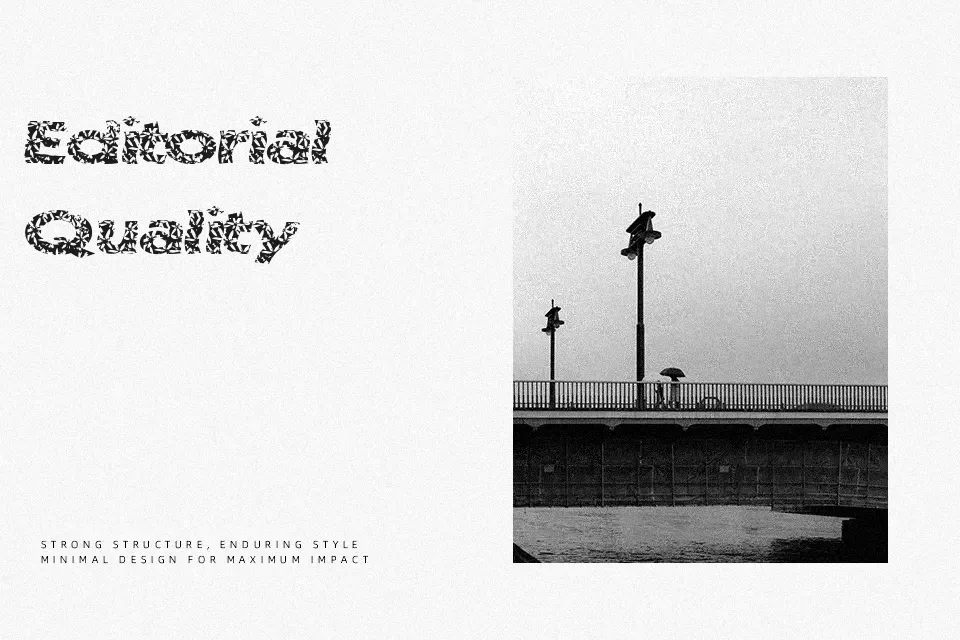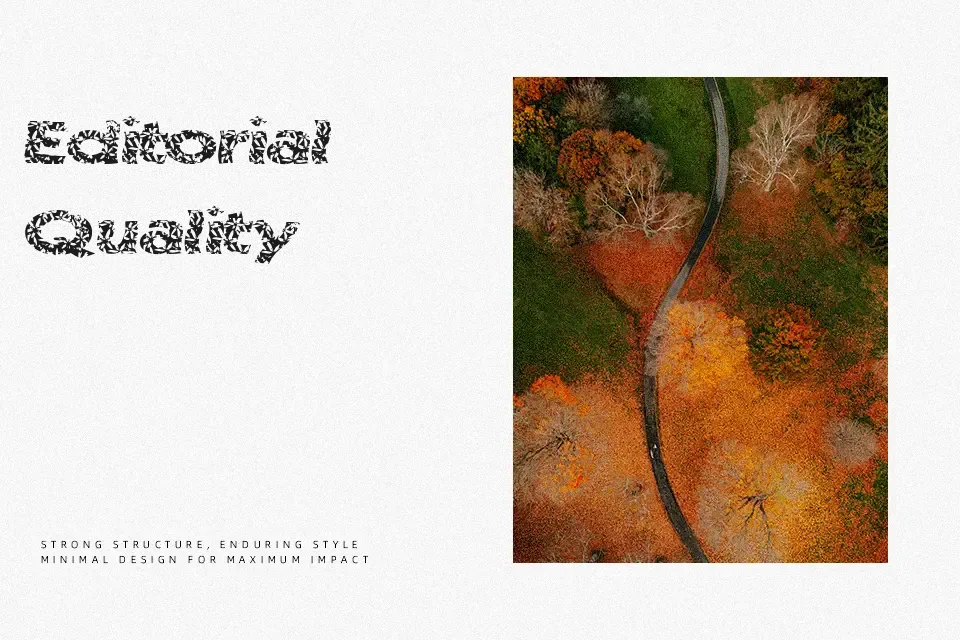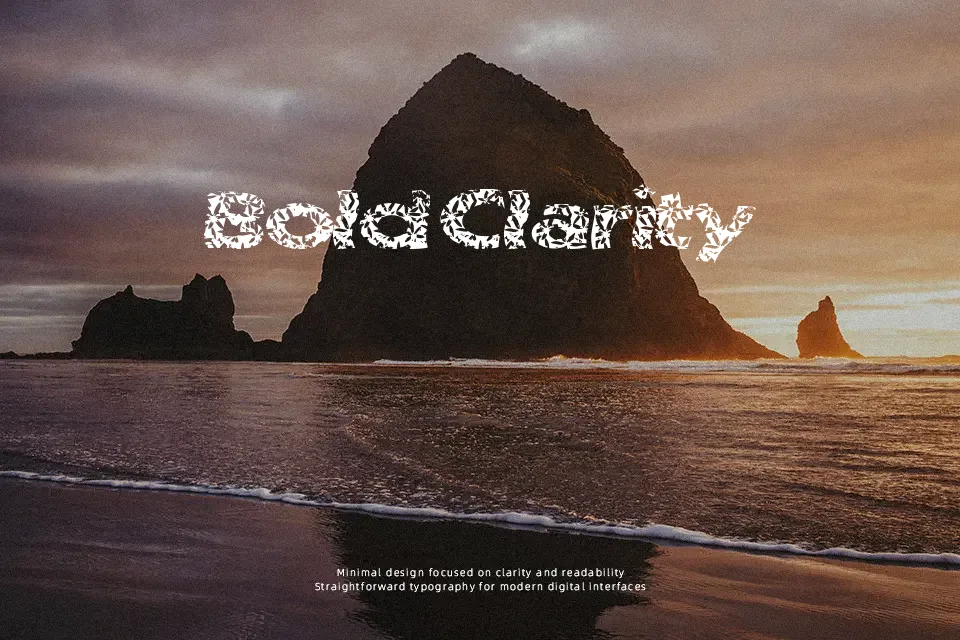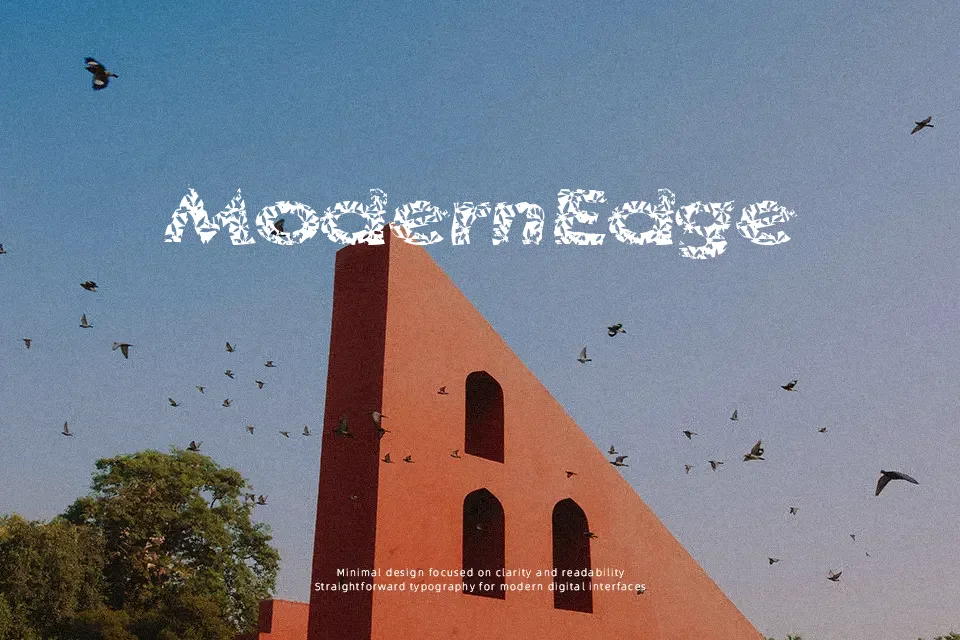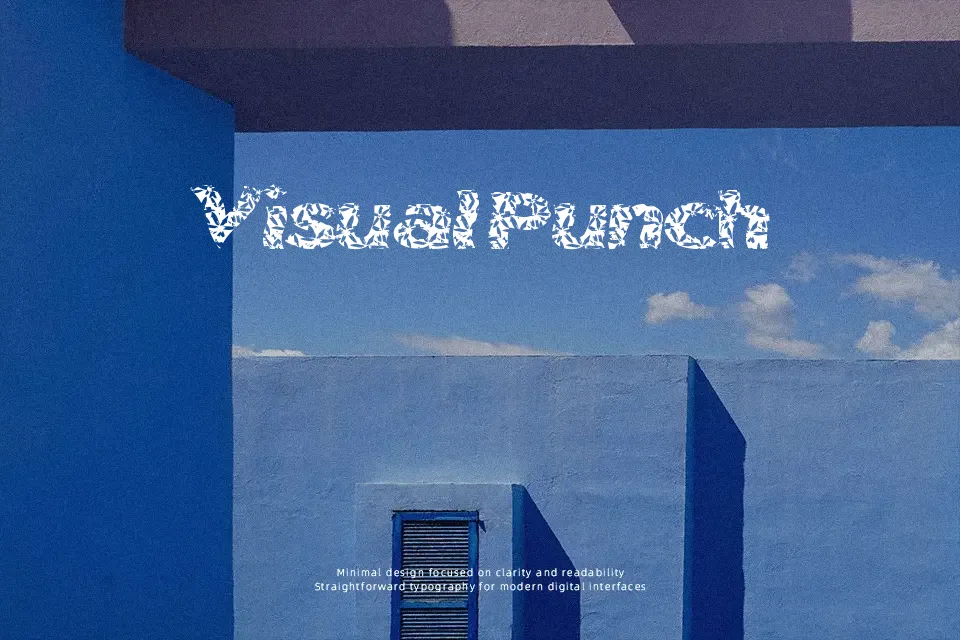
Surf Shack Font
Surf Shack Font presents thick, irregular strokes combined with loose curves that produce a distinctly playful, vintage character. The letterforms display uneven weights and varied inner counter shapes, creating an organic rhythm across display headlines. Spacing between characters is relatively tight, which helps compact short titles but reduces clarity at reduced point sizes. While the typeface delivers strong visual weight across summer event banners, merchandise labels, and casual logo marks, dense text arrangements quickly become difficult to read. The decorative complexity makes the design unsuitable for extended paragraphs or detailed captions, but large display settings allow its quirky structural details to stand out effectively.
– Summer event posters
– Beachwear apparel graphics
– Tropical beverage packaging
– Surf shop logo headlines
– Extended body text
– Technical documentation
– Small user interface labels
– Dense corporate publications
Perfect for advertising, branding, and headline, with a creative and decorative style.